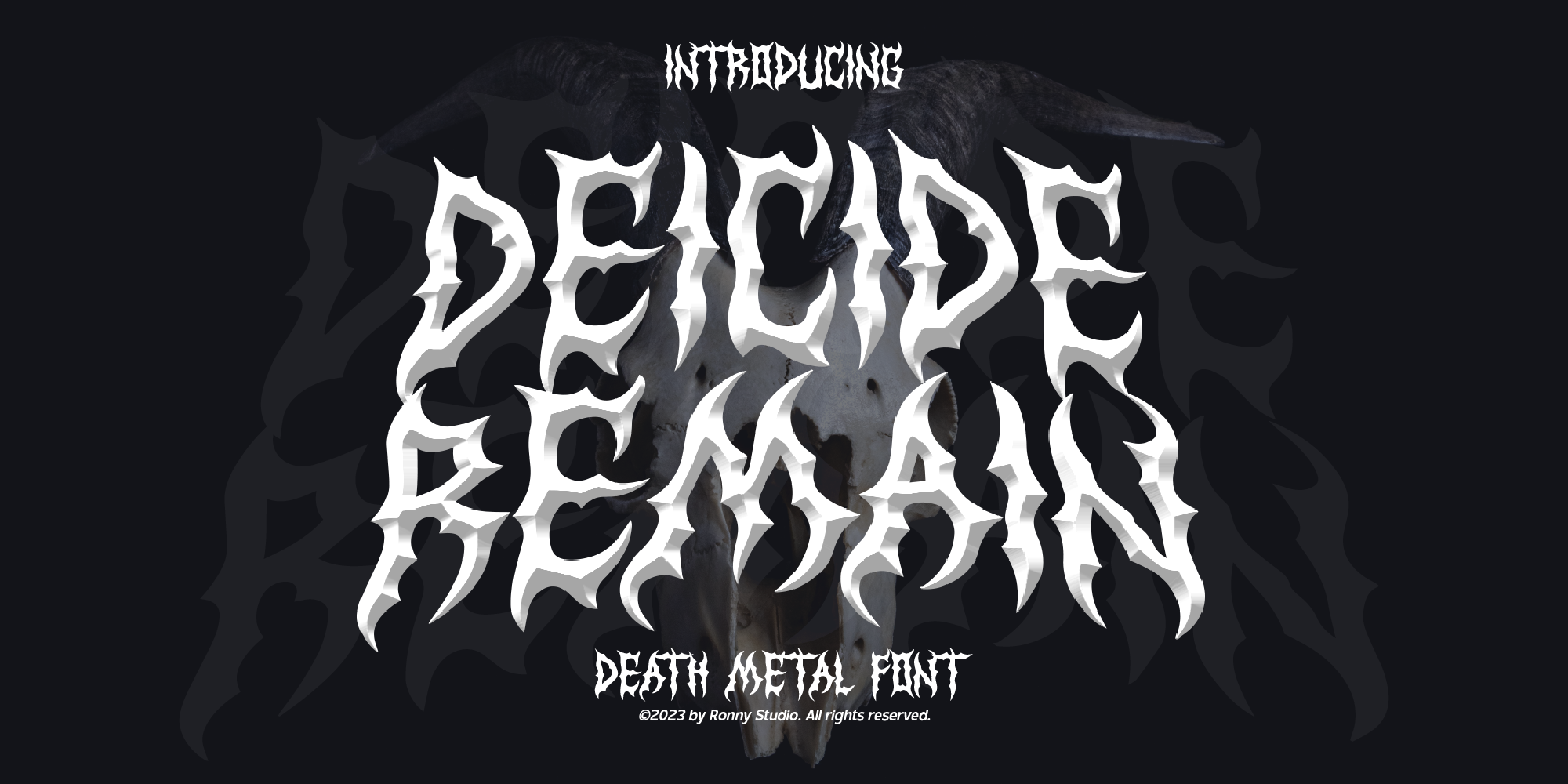
Deicide Remain Font is perfect for various applications including metal band logos, horror movie titles, gothic branding, dark fantasy book covers, heavy music album artwork, extreme sports graphics, tattoo designs, underground event posters, alternative fashion labels, and edgy advertising campaigns.
What makes Deicide Remain Font so exciting is its intense, rebellious character that embodies raw power and uncompromising attitude. This striking typeface features sharp, angular letterforms with aggressive styling that creates an immediate sense of darkness and intensity. The font's bold personality and commanding presence make it ideal for brands and projects that want to convey strength, rebellion, and alternative culture to audiences who appreciate authentic, unfiltered expression.
Deicide Remain Font family includes multiple weights and styles: Regular, Bold, Black, Distressed, Outline, Shadow, Grunge, and Condensed variants. Each family member maintains the font's signature darkness while offering different levels of intensity and visual effects for diverse extreme creative applications.
The Deicide Remain Font Free Download provides designers with access to a powerful display typeface that excels in alternative and underground markets. Whether you're creating metal band identities, horror-themed designs, or extreme sports branding, this font delivers the visual impact needed to resonate with niche audiences. Its dark styling and contemporary edge make it particularly effective for subcultures that value authenticity and raw artistic expression.
Typography specialists will recognize the careful balance between aggression and readability in Deicide Remain Font's construction. The font features optimized character spacing, strong contrast elements, and meticulously crafted details that ensure excellent visibility even in challenging design environments. From large-scale merchandise graphics to digital interfaces, this typeface maintains its powerful impact across all applications.
For digital designers working in entertainment, gaming, and alternative media, Deicide Remain Font provides exceptional performance in dark-themed applications and extreme content. The font's technical specifications are optimized for both screen display and print production while maintaining the sharp, intense edges that define its character.
Creative professionals in music, entertainment, and alternative fashion industries will find Deicide Remain Font to be an essential tool for projects requiring bold visual statements. The font's ability to convey authenticity, power, and underground culture makes it invaluable for brands targeting alternative demographics and subculture communities.
Design agencies specializing in extreme sports, music, and alternative lifestyle brands appreciate Deicide Remain Font's versatility in creating memorable dark identities.